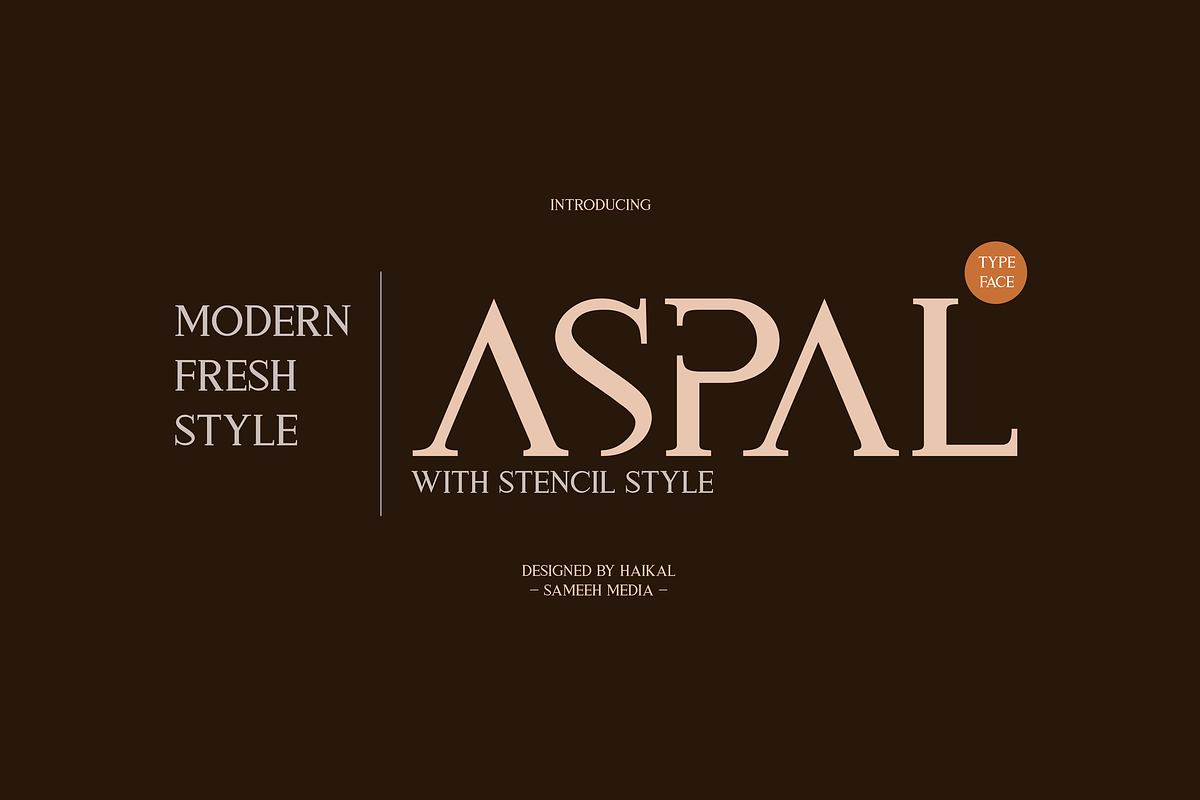
Aspal Typeface Font
Aspal is a sleek, all-caps serif typeface built for bold logos, elegant titles, and polished branding.
Introducing Aspal Typeface Font — a minimalistic and classy serif designed with two distinct styles: regular and stencil. Its clean, architectural letterforms pair beautifully with a wide variety of fonts, making it a versatile choice for nearly any creative project.
Whether you're crafting luxury logos, editorial headlines, or standout packaging, Aspal brings sophistication and modern flair to every design.